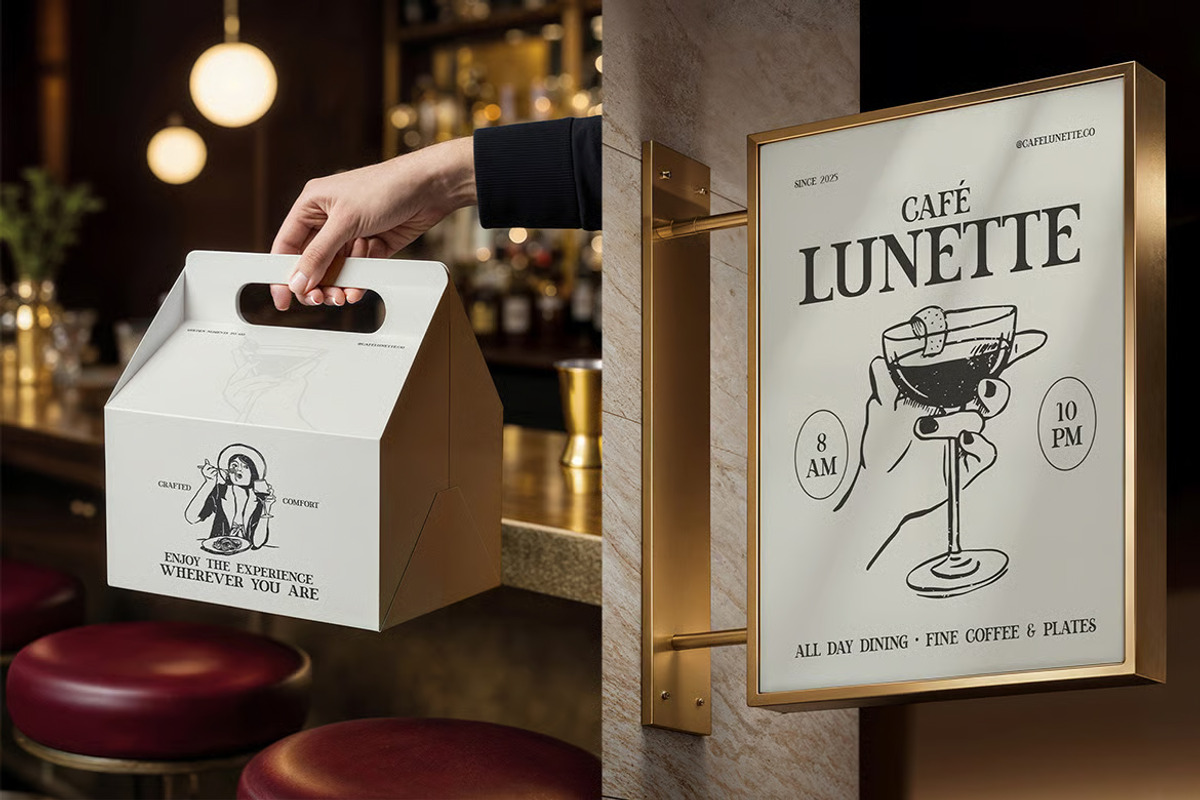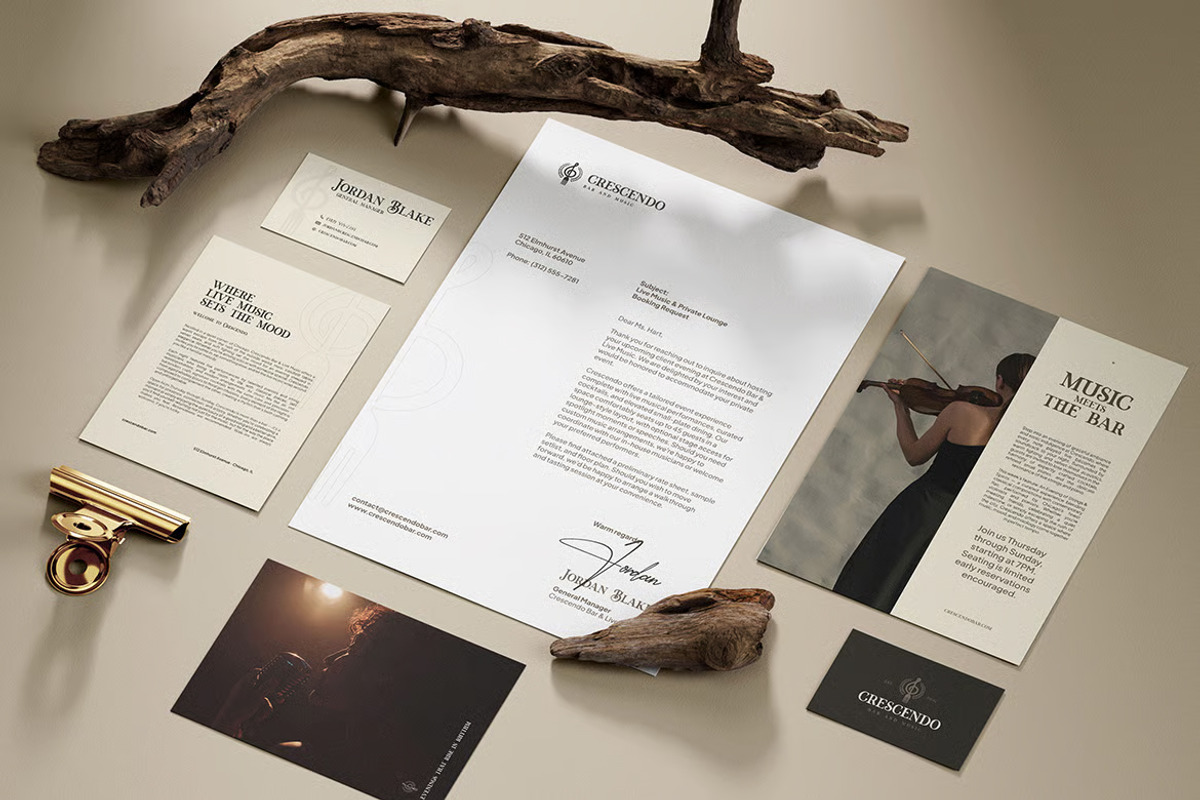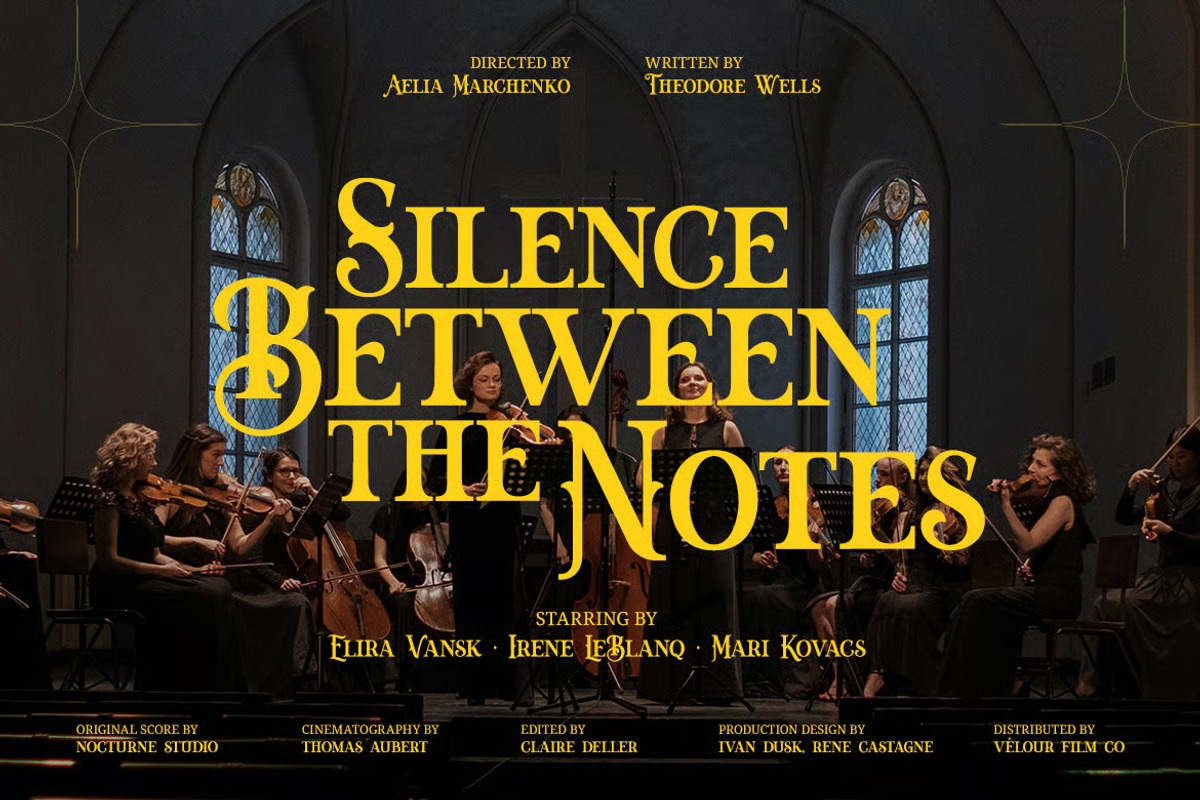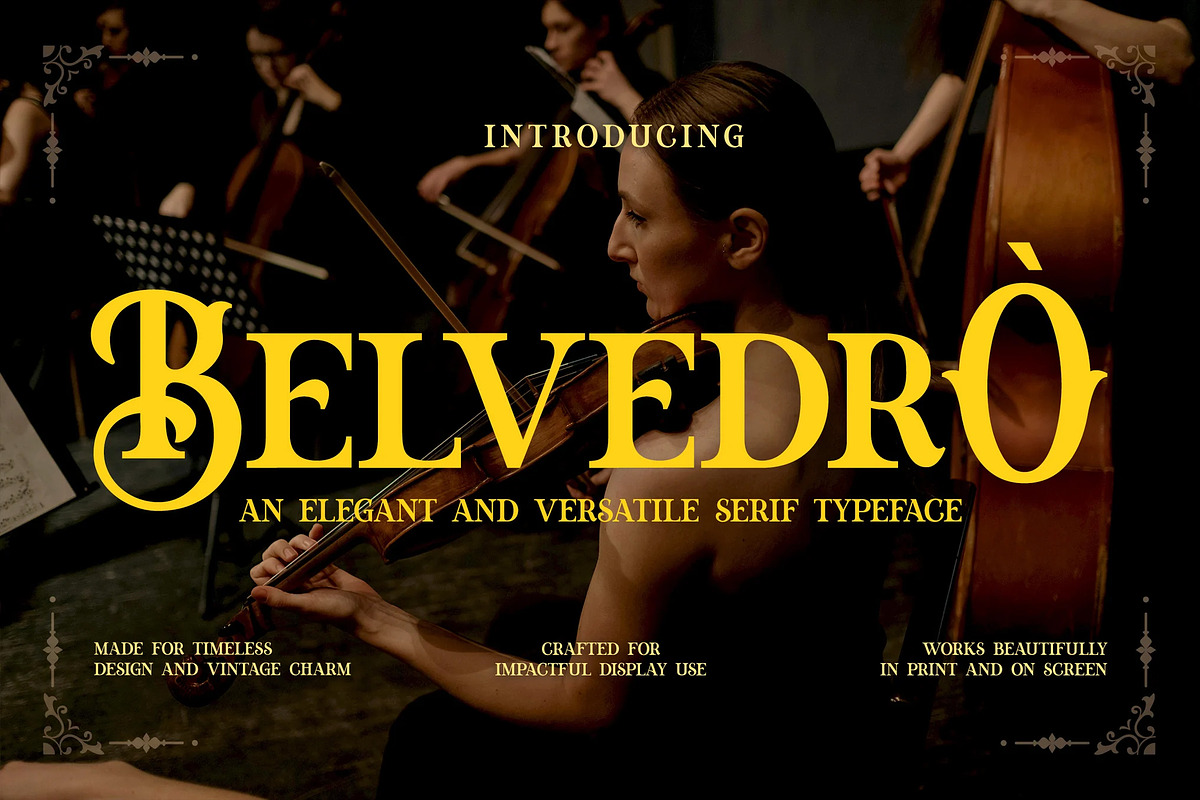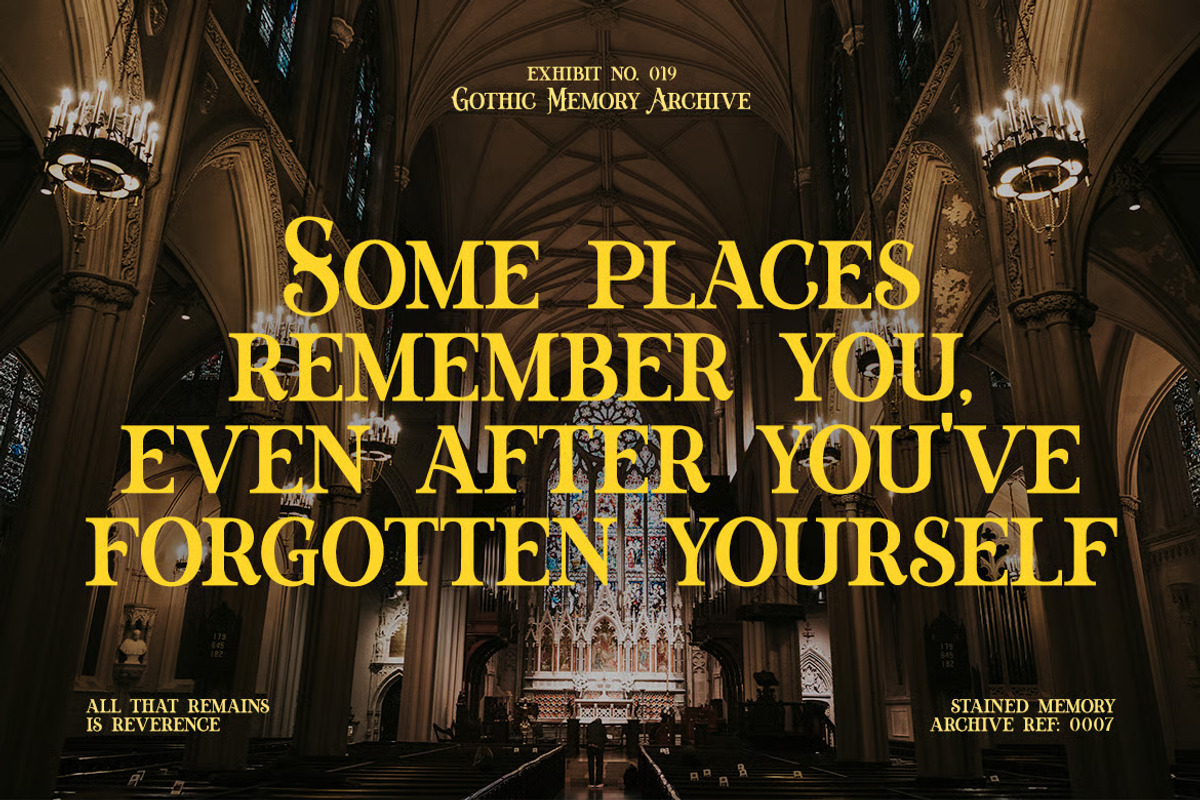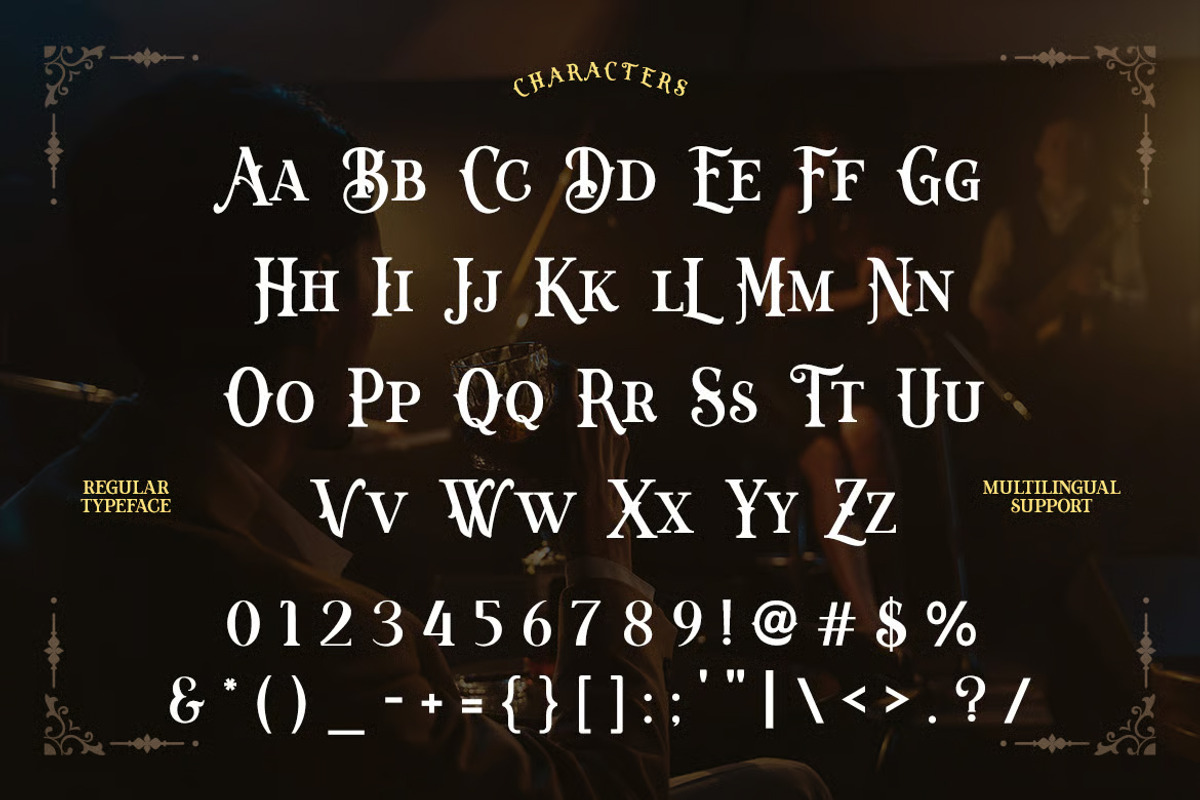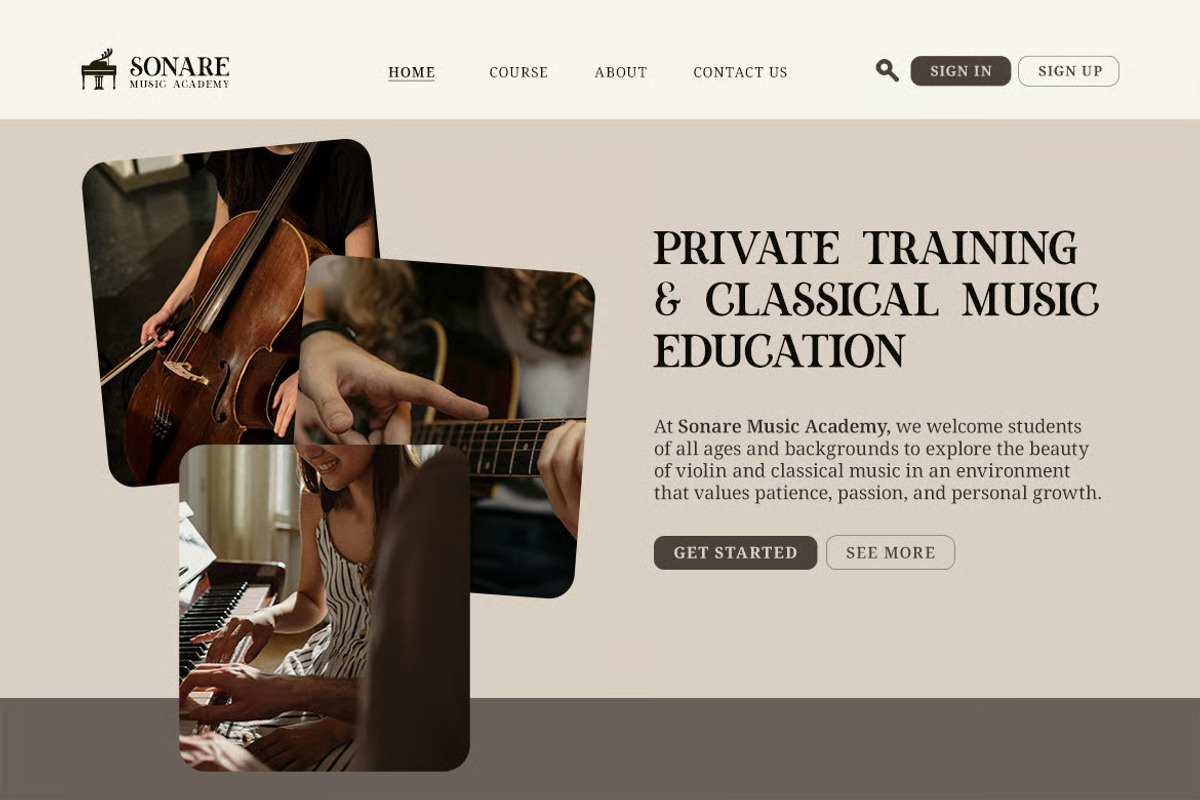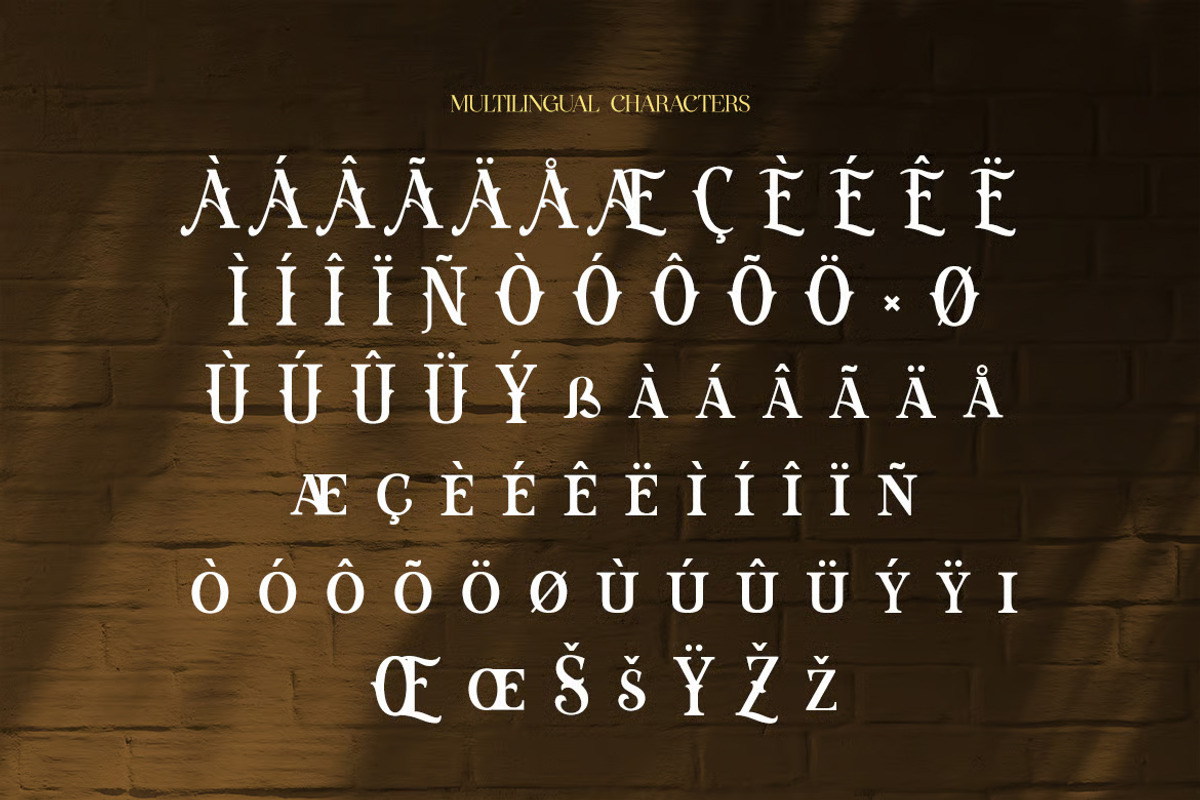
Belvedrò – Versatile Vintage Serif
Belvedrò is an elegant serif typeface that blends vintage charm with timeless sophistication. Designed with intricate letterforms and refined curves, this versatile font is perfect for classical music posters, luxury branding, editorial layouts, restaurant identities, and historical-themed projects. Belvedrò's artistic flair and full multilingual support make it a strong choice for any designer aiming for classic elegance and expressive typography.
The letterforms in Belvedrò are carefully crafted with intricate curves, refined contrast, and a graceful rhythm that gives the typeface a vintage and sophisticated appearance. It features a classical elegance that is perfect for music posters, luxury branding, and historical-themed design.
With its artistic flair and expressive detailing, Belvedrò bridges the gap between vintage charm and timeless refinement. It provides a strong, versatile identity while remaining adaptable, making it ideal for restaurant branding, editorial layouts, and formal stationery.
Main Features
Ligatures & Alternate
Numeral & Punctuations
Suitable For: music posters, editorial headline, classical branding, elegant invitations, restaurant menus, vintage packaging, logo design, fine art book, historical themes, café branding, boutique identity, formal stationery, premium labels, museum design, title sequences, theatrical promo, creative publishing, print design, decorative signage, and heritage brand.